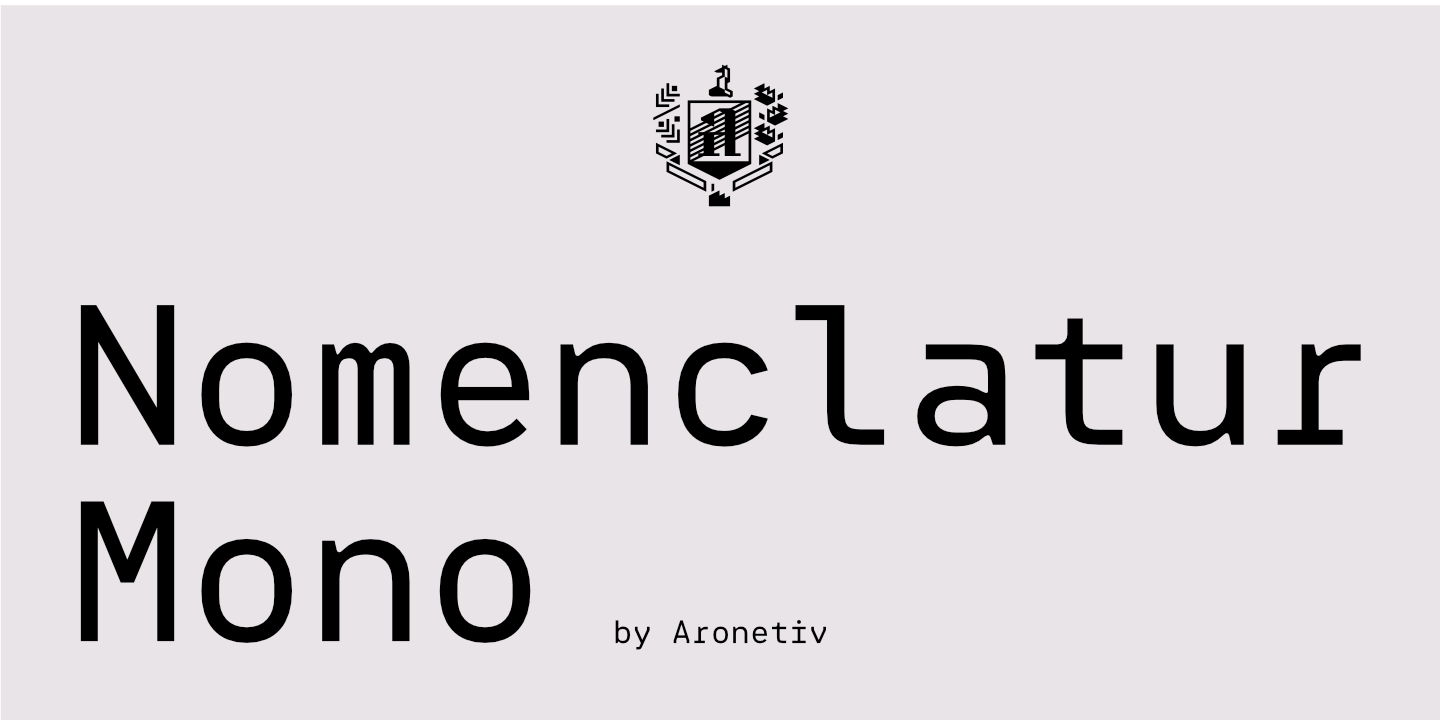
Nomenclatur Mono Font is perfect for scientific documentation, technical programming interfaces, laboratory equipment displays, research paper layouts, coding environments, data visualization charts, academic classification systems, and precision measurement applications. This systematic typeface excels in applications where scientific accuracy and methodical organization are essential.
What makes Nomenclatur Mono Font so exciting is its precise ability to deliver scientific clarity and systematic organization through monospaced letterforms that ensure perfect alignment for technical data and research documentation. The font features uniform character spacing with laboratory-inspired details and classification-influenced styling that evoke images of scientific nomenclature, precise measurements, and methodical research processes. Its academic design philosophy combines scientific rigor with contemporary functionality, making it perfect for research institutions seeking to establish authoritative communication while maintaining technical precision and scholarly credibility.
Nomenclatur Mono Font belongs to the monospace font family, specifically designed for scientific and technical documentation applications. This typeface family emphasizes systematic precision through uniform character spacing and academic styling standards, ensuring consistent presentation across various research and technical-focused design projects.
Achieve scientific precision with Nomenclatur Mono Font Free Download, a typeface that embodies the methodical accuracy of scientific research and technical documentation. This systematic font delivers exceptional clarity for academic applications, featuring comprehensive character sets with scientific symbols and technical punctuation marks perfectly suited for research and laboratory communications. Its precisely spaced letterforms maintain excellent alignment across various sizes, from detailed chemical formulas to large laboratory safety signage. The font's distinctive scientific personality makes it indispensable for designers creating research brands, academic materials, and technical content where conveying accuracy, methodology, and scientific credibility is crucial for scholarly trust and institutional authority in competitive academic environments.